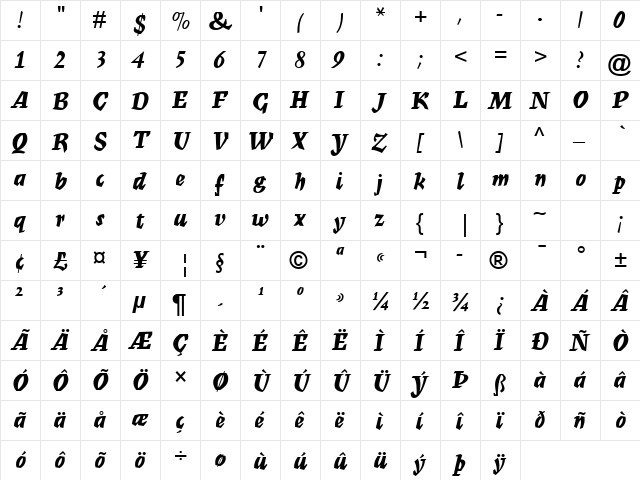
Design Context for Mercurius Script MT Bold Typeface
Mercurius Script MT Bold brings a calligraphic fluidity to the page — its connecting strokes and expressive curves give it an unmistakably human quality. The heavy weight commands attention and anchors typographic hierarchies.
Font Pairing: Combine Mercurius Script MT Bold with a simple geometric sans for maximum contrast — the tension between flowing curves and clean structure is a classic typographic pairing.
Pro Tip: Pair Mercurius Script MT Bold with a clean sans-serif for supporting text. The contrast between fluid script and geometric structure creates an elegant typographic hierarchy.